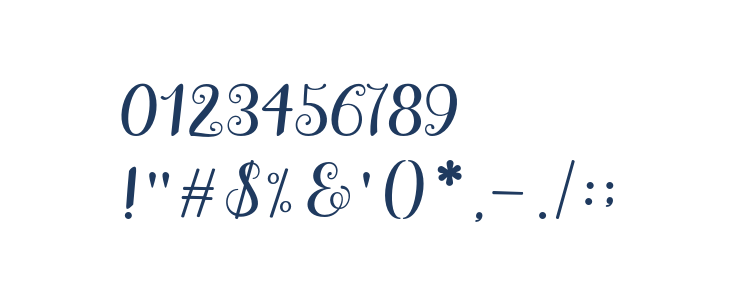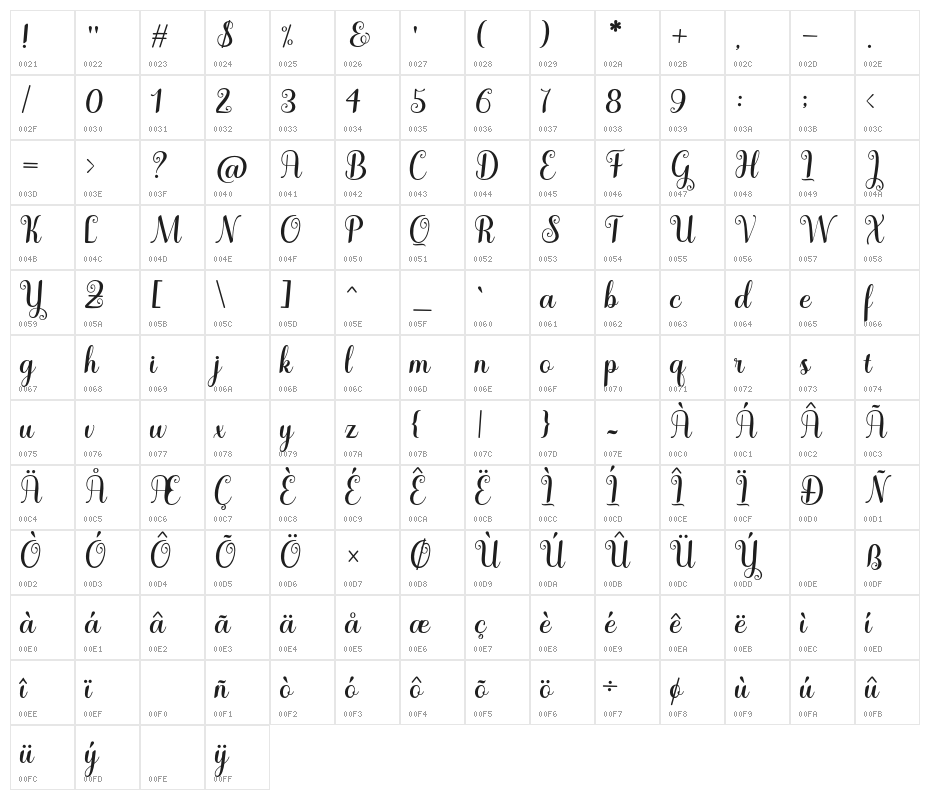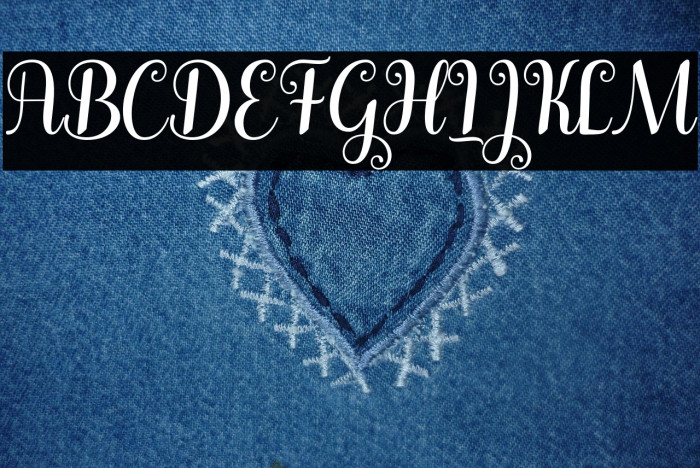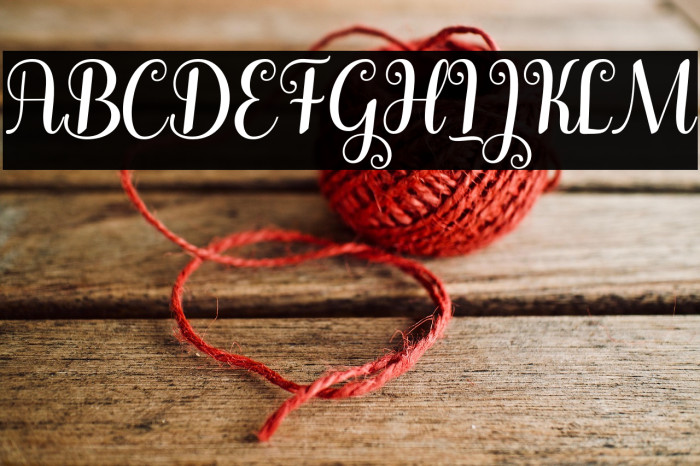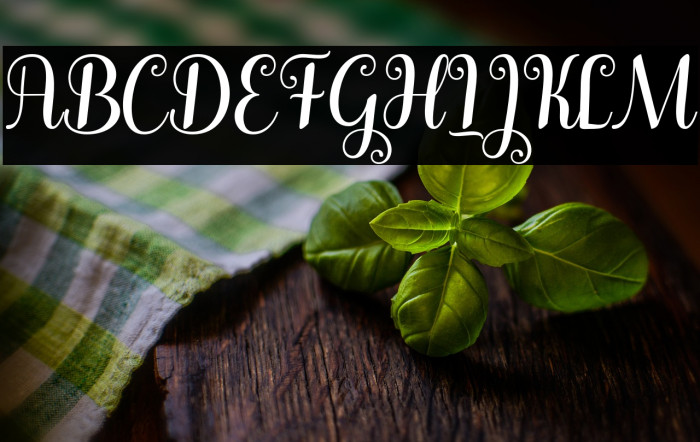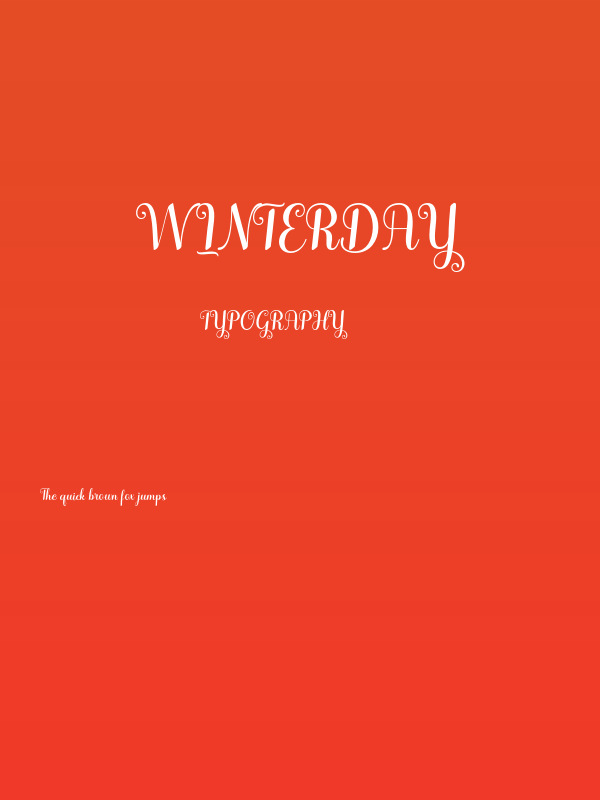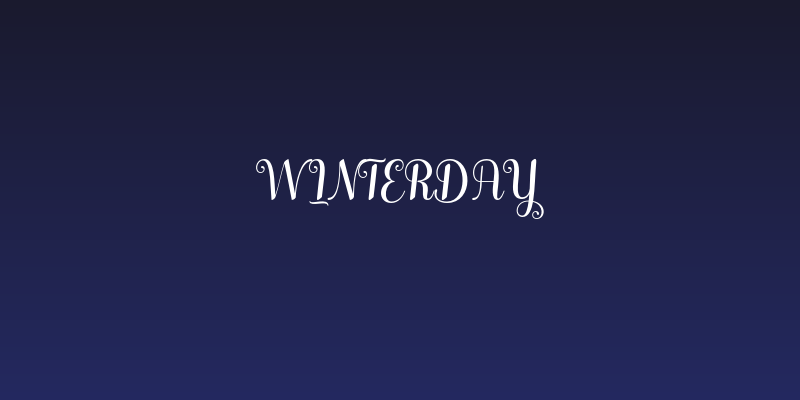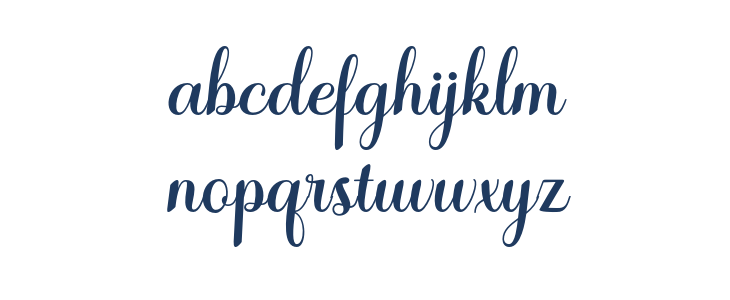
Winterday Font
Winterday Description
This elegant script font features a flowing, cursive style with intricate swirls and loops, giving it a sophisticated and decorative appearance. The uppercase letters are adorned with elaborate flourishes, while the lowercase letters maintain a smooth, connected flow. The numerals and special characters are equally ornate, adding a touch of elegance to any design. The overall aesthetic is both classic and modern, making it versatile for a variety of uses. The font's high contrast in stroke thickness enhances its readability while maintaining its decorative charm.
| Proposed Projects | Ideal for wedding invitations, greeting cards, branding, and elegant logo designs. |